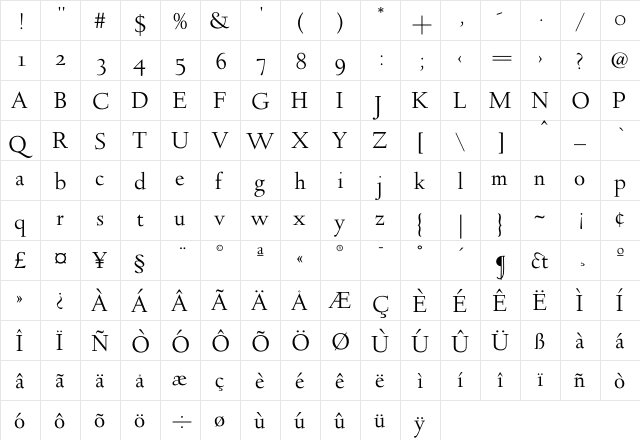
Deepdene H Font Preview
Deepdene H
Design Context for Deepdene Typeface
Deepdene is a composed and adaptable typeface that performs quietly and consistently across a wide range of design contexts.